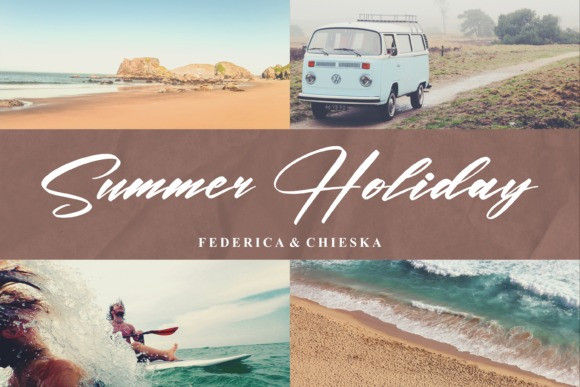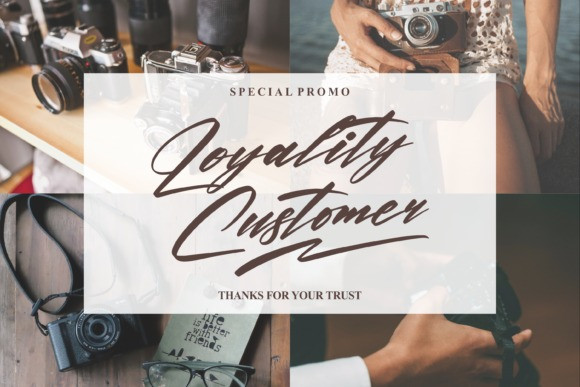
Rockesta Brush Font
Rockesta Brush Font is a lovely and delicate script font that exudes elegance and class. This font was particularly crafted for those who need a beautiful and refreshing look to their designs. Rockesta Brush is PUA encoded which means you can access all glyphs and swashes with ease!